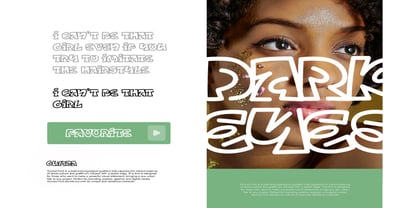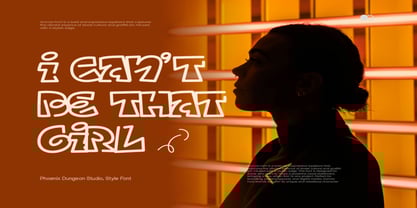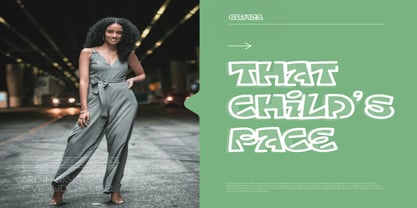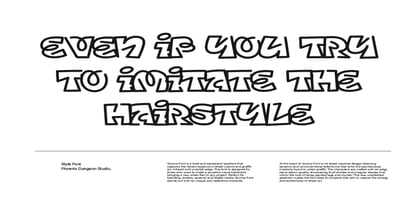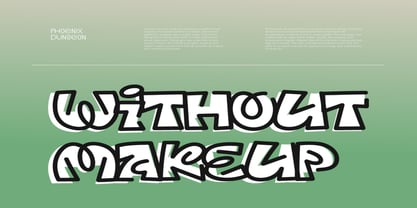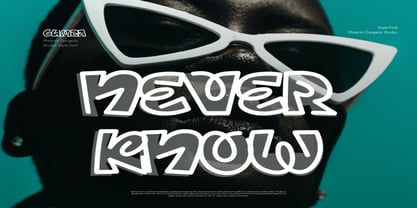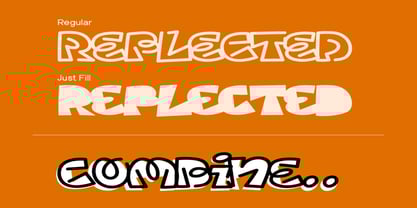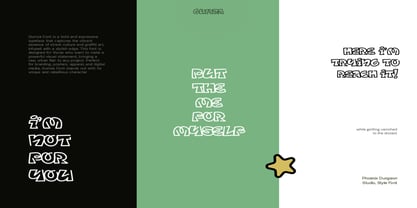
Gumza
by Phoenix Group
The Gumza Font Family was designed by Alif Naufal Muzakki and published by Phoenix Group. Gumza contains 1 styles. More about this family
Gumza Font is a bold and expressive typeface that captures the vibrant essence of street culture and graffiti art, infused with a stylish edge. This font is designed for those who want to make a powerful visual statement, bringing a raw, urban flair to any project. Perfect for branding, posters, apparel, and digital media, Gumza Font stands out with its unique and rebellious character.